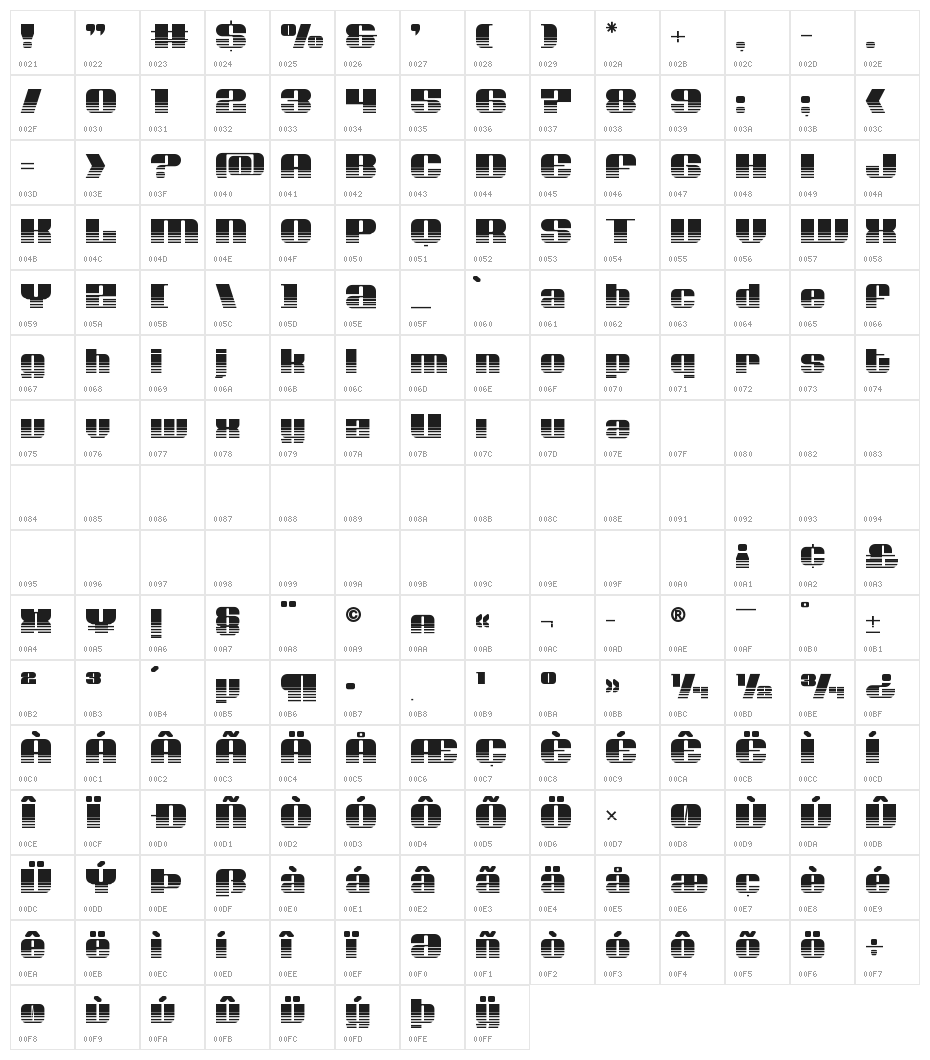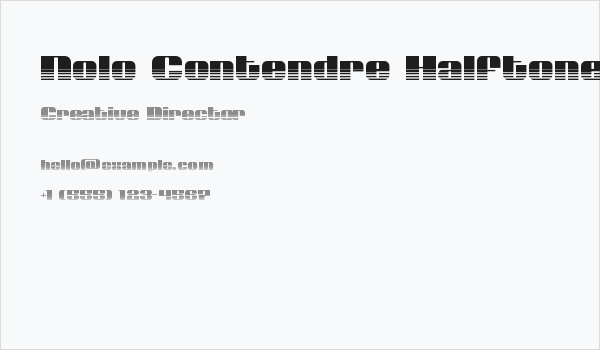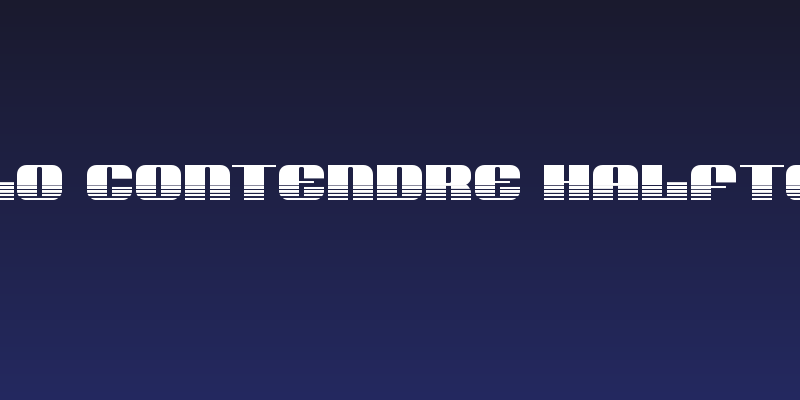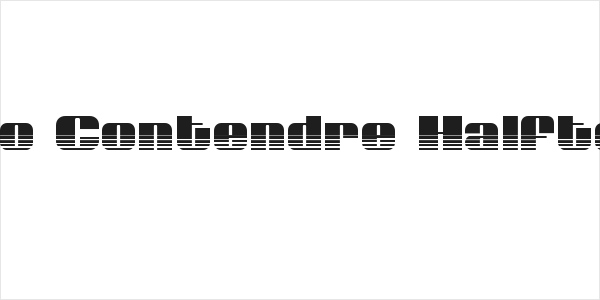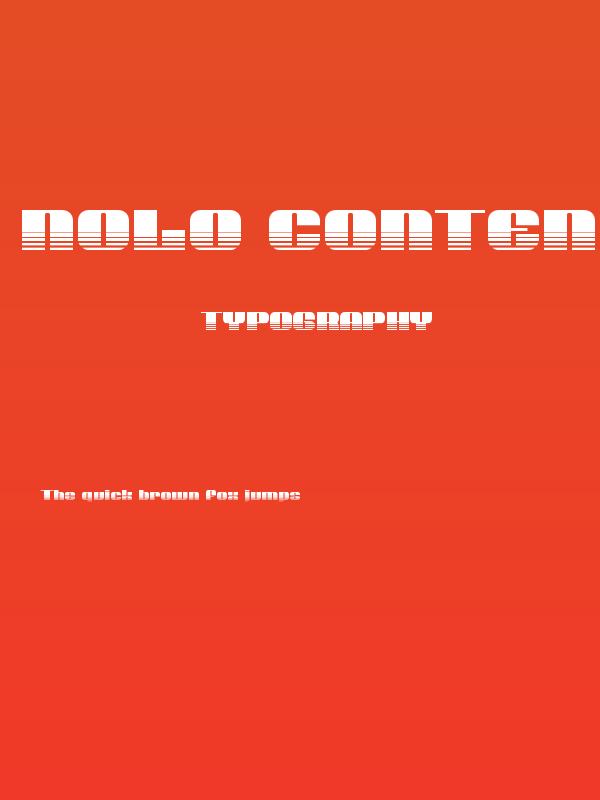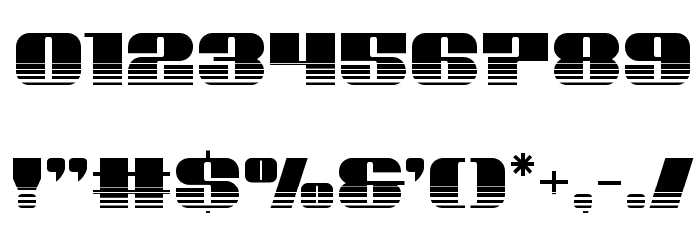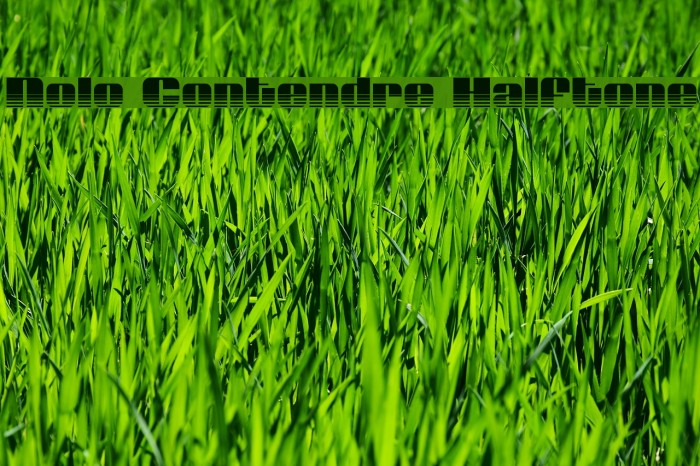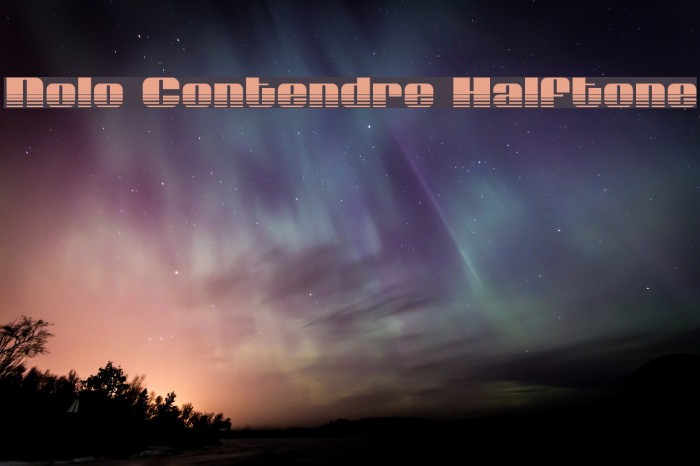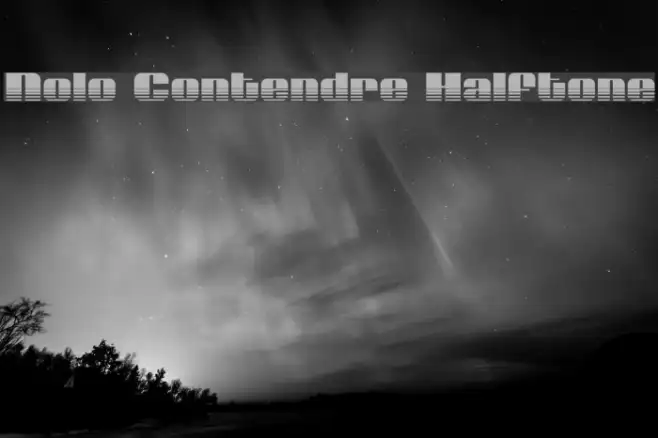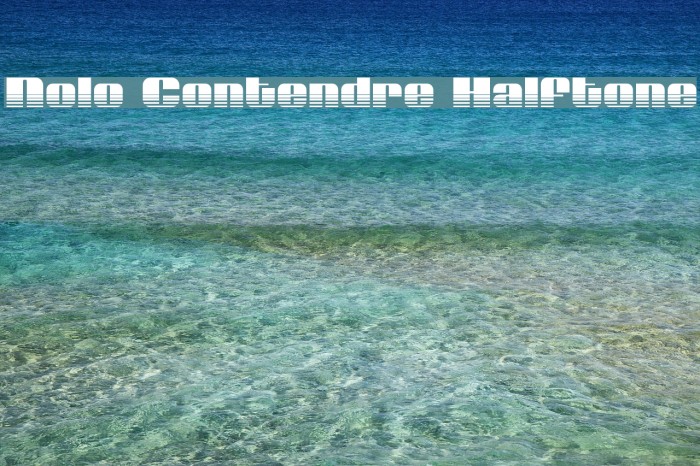
Nolo Contendre Halftone Font
Nolo Contendre Halftone Description
This font features a bold, decorative style with a unique halftone effect that creates a sense of depth and texture. The characters are wide and blocky, with horizontal lines cutting through each letter, giving it a distinct, modern appearance. The uppercase and lowercase letters maintain a consistent design, while the numerals and special characters follow the same stylistic approach. This font is eye-catching and ideal for projects that require a strong visual impact.
| Proposed Projects | Ideal for posters, headlines, branding, and any design project that requires a bold, modern look. |